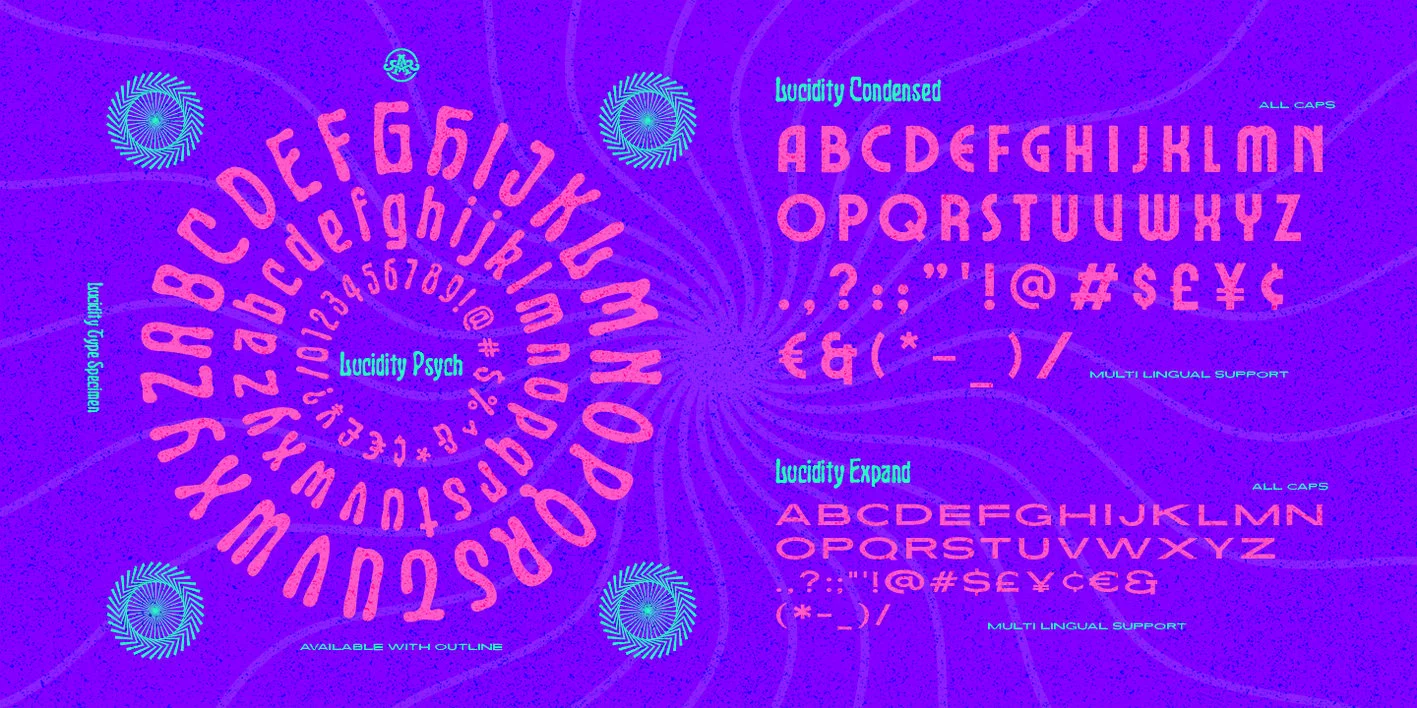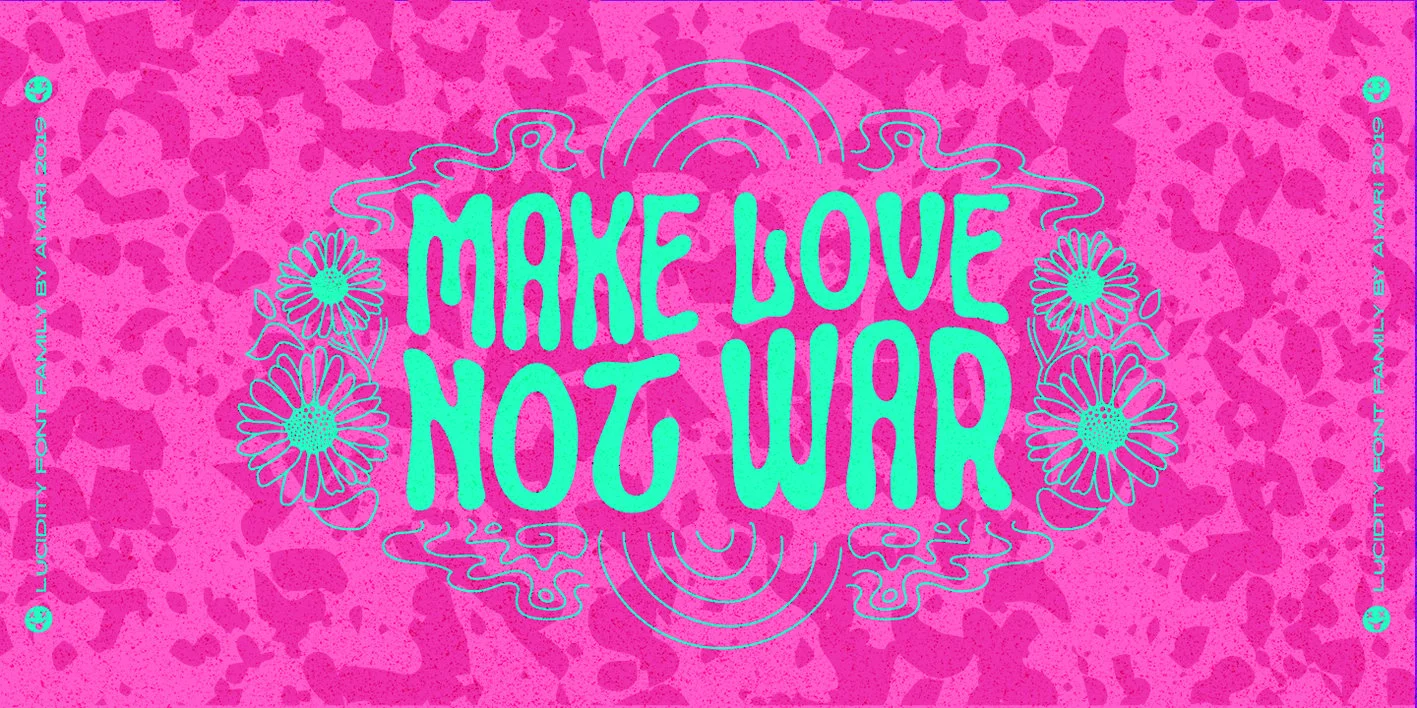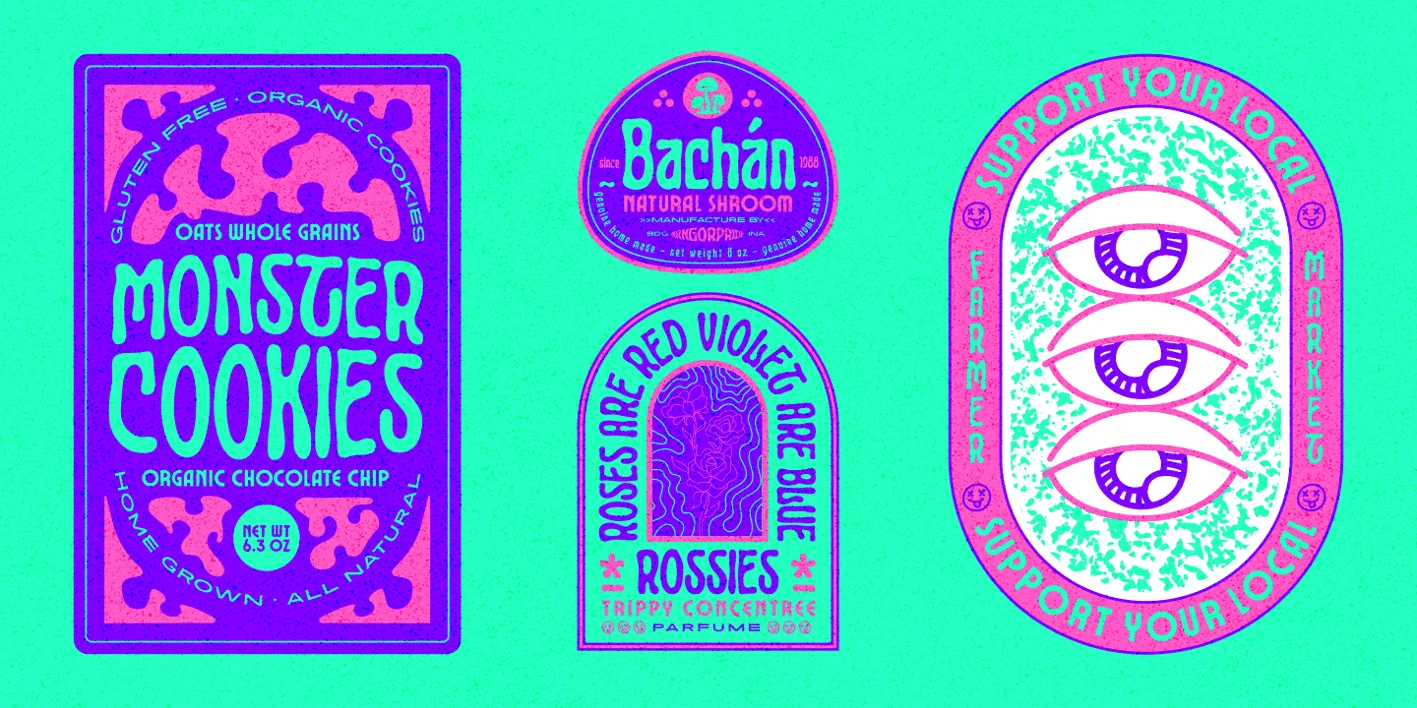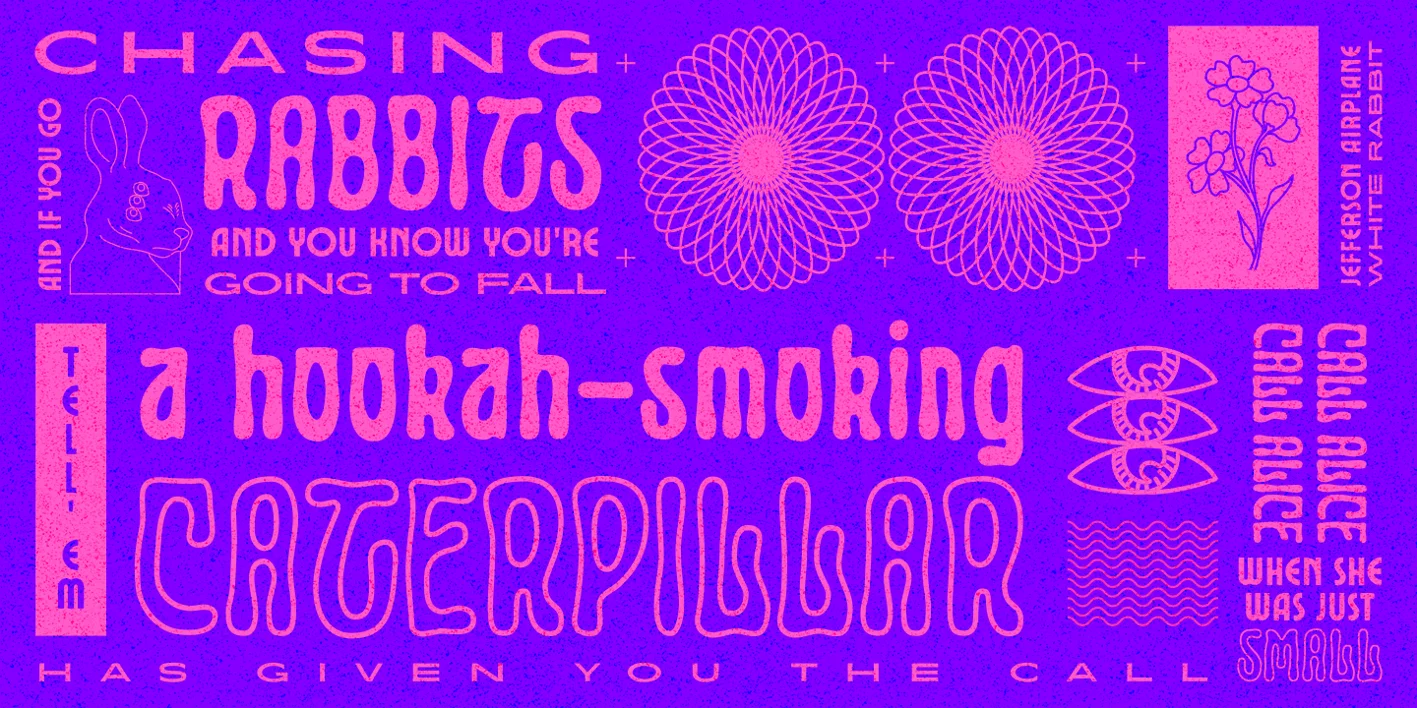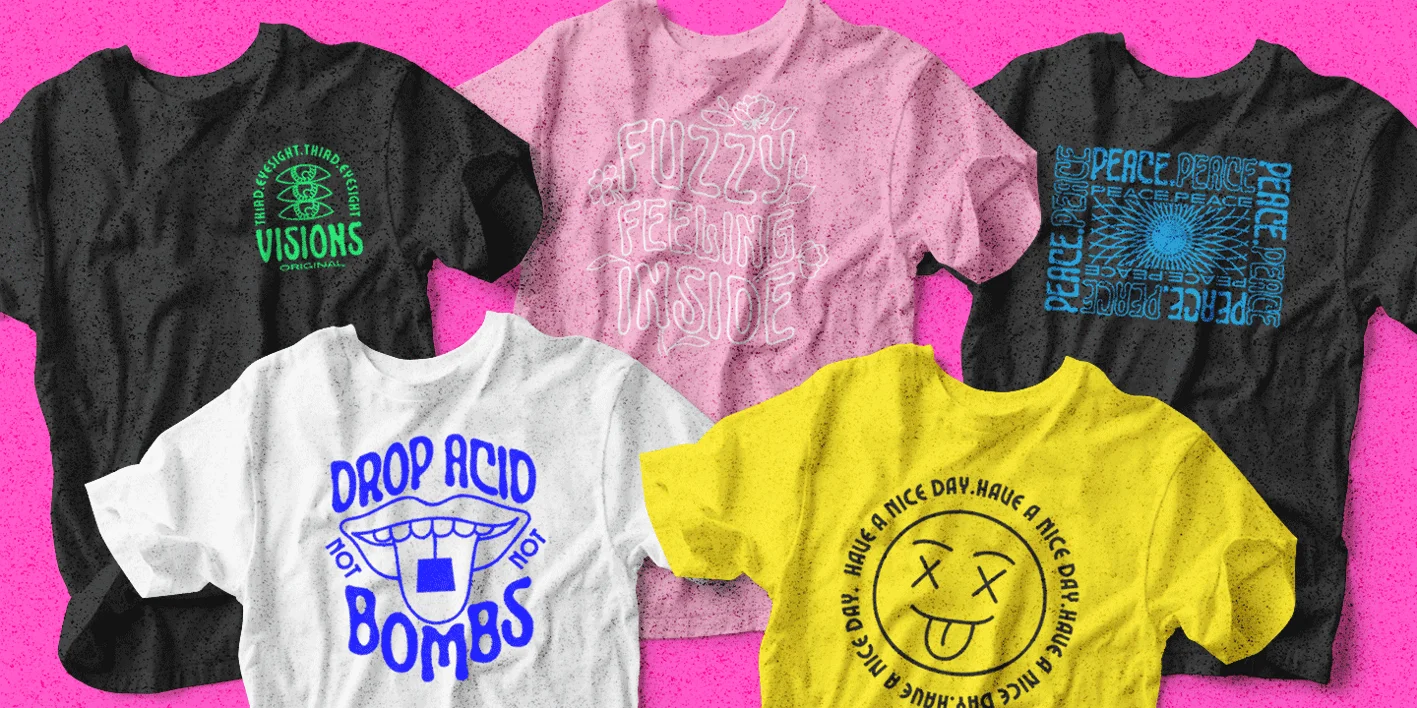
Lucidity Font
Typography shapes perception at a subconscious level. Lucidity leverages a confident voice that adapts to diverse briefs to make every composition feel considered. The typeface brings a versatile sensibility to a broad range of creative disciplines, with versatility across print and screen contexts that holds up whether the work is print-first or screen-first.
In practice, Lucidity proves particularly effective for annual reports, environmental graphics, web design, poster creation, social media graphics. Designers reaching for it find that the type decisions feel resolved rather than laboured — a useful quality when client timelines are tight.
The range of applications extends to signage systems, packaging design, editorial layouts, product labels. That breadth is deliberate: the proportions and spacing were stress-tested across a wide range of mock briefs before the typeface was finalised.
The consistent rhythm of Lucidity across a full paragraph creates the kind of even grey value that makes extended reading comfortable, a detail that matters more in long-form content than its subtlety might suggest.
UX designers establishing typographic systems for digital products find Lucidity a reliable choice for projects that demand both personality and restraint. The design avoids the self-conscious quirkiness that dates quickly, settling instead for considered distinctiveness that holds up over time.